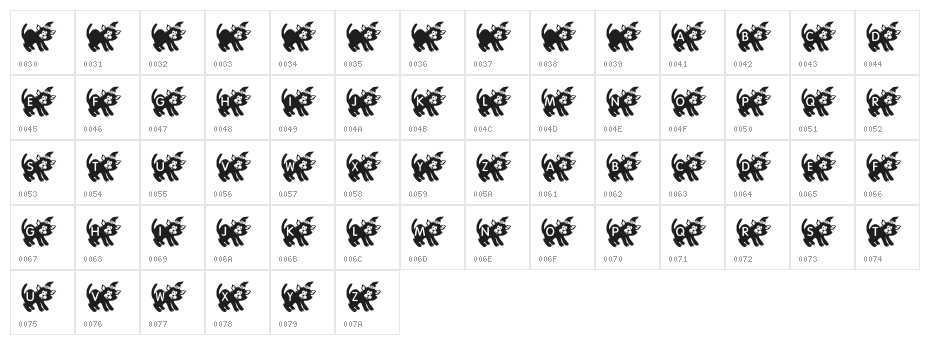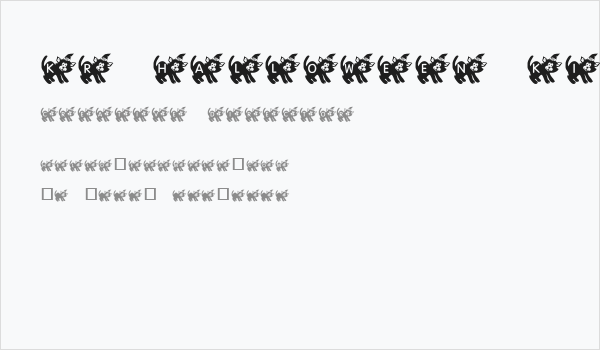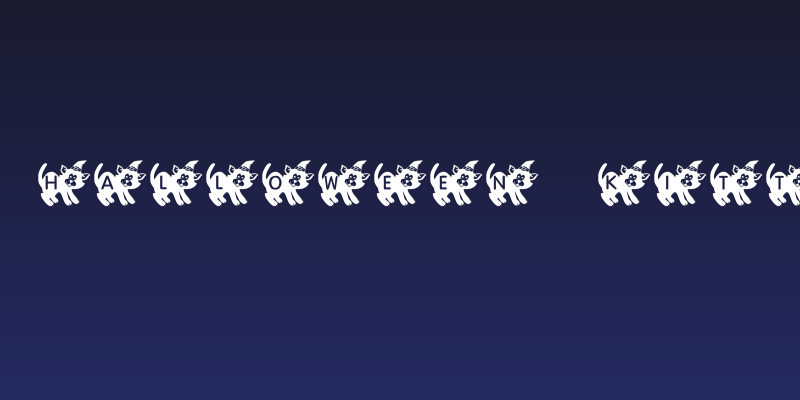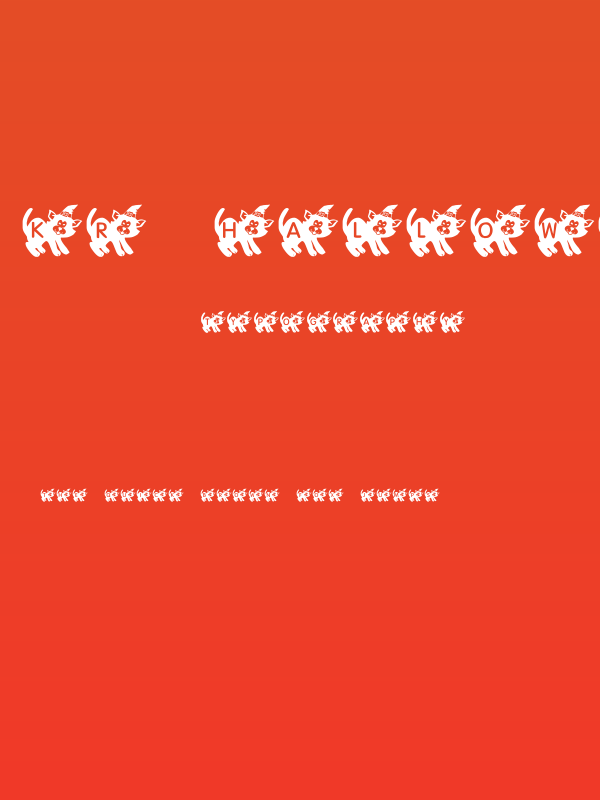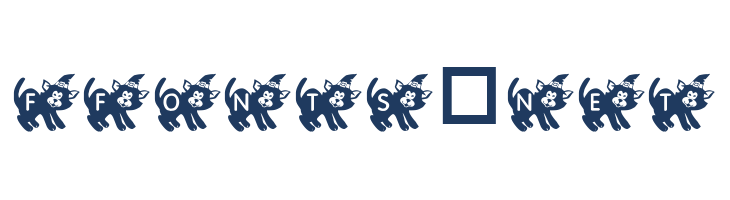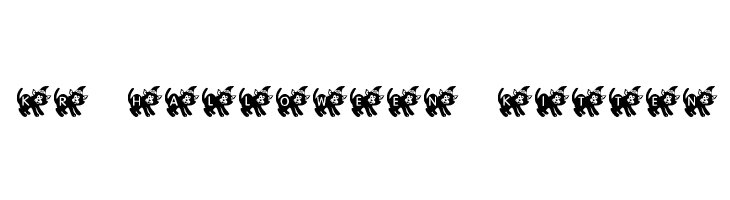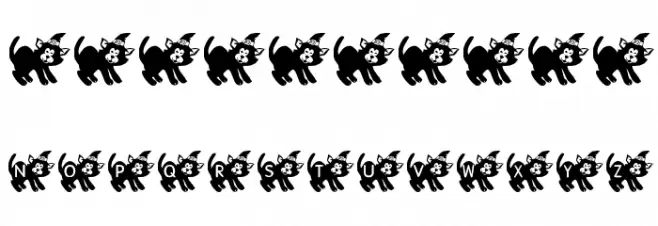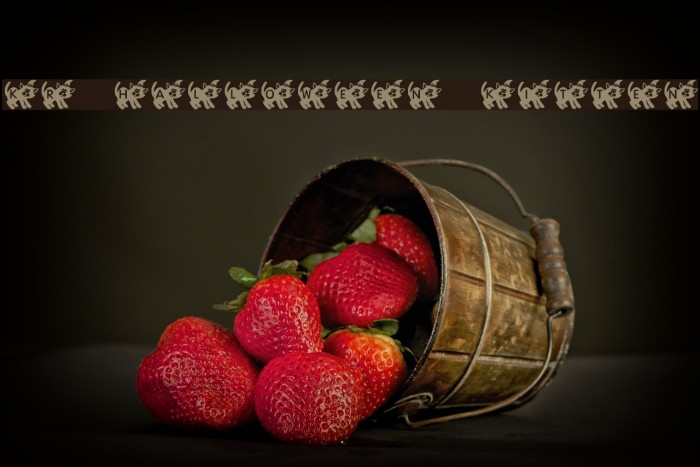
KR Halloween Kitten Font
KR Halloween Kitten Description
This playful and whimsical font features each letter and number embedded within a silhouette of a black cat, adding a unique and festive touch. The design is perfect for Halloween-themed projects, with its bold and decorative style capturing the essence of fun and spookiness. The characters are well-defined within the cat shapes, making them easily recognizable while maintaining a cohesive theme. The font's distinct appearance makes it ideal for creative and seasonal uses, adding a touch of charm and personality to any design.
| Proposed Projects | Ideal for Halloween invitations, party decorations, themed posters, and children's event materials. |